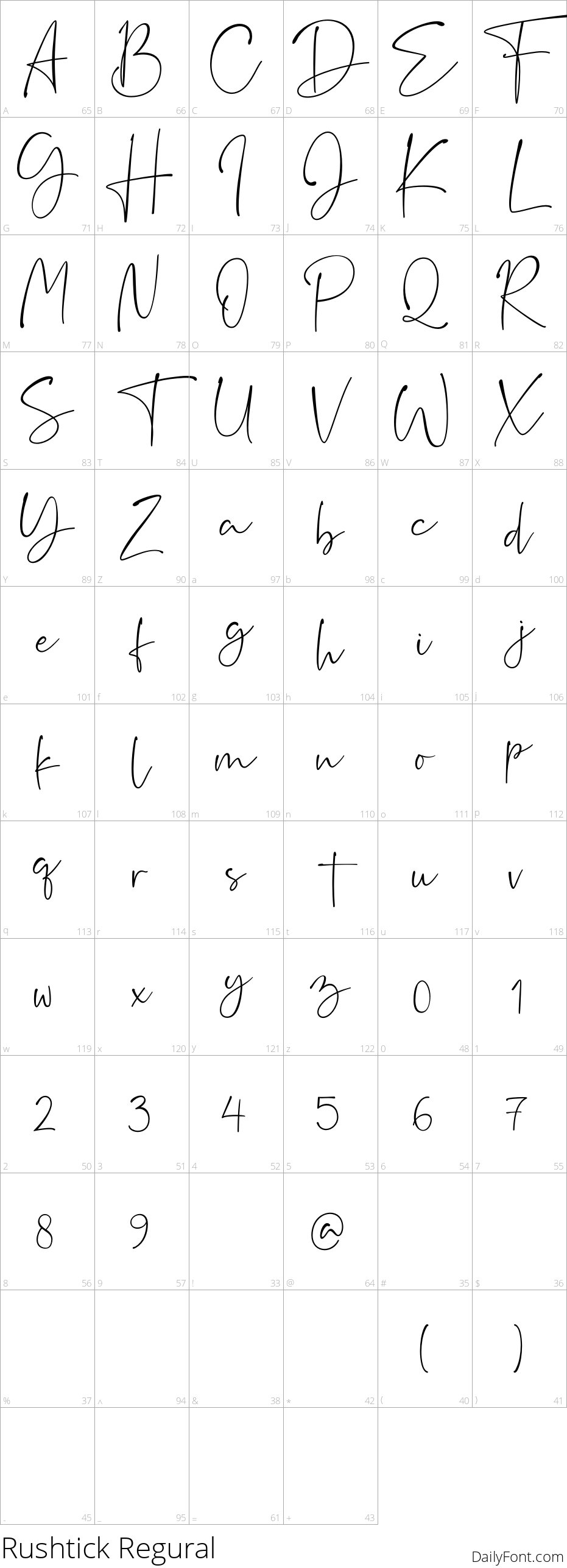
Rushtick
Rushtick, designed by Ef Studio, is a captivating script font that exudes an elegant, handwritten charm. The font's script nature gives it a sense of fluidity and grace, making it an excellent choice for projects that seek a personal, intimate touch. Each letter flows seamlessly into the next, creating a cohesive and harmonious look.
The characters in Rushtick are characterized by their smooth curves and intricate swirls, which convey a sense of meticulous craftsmanship. Uppercase letters stand out with their bold flourishes, adding a touch of sophistication, while the lowercase letters maintain a consistent, gentle rhythm, ensuring readability. This balance between elegance and readability makes Rushtick versatile for various design needs.
Additionally, Rushtick includes numbers and a range of punctuation marks that match the font's overall style, offering a complete and cohesive set for designers to work with. The inclusion of these elements ensures that the font is as functional as it is beautiful.
Designed with careful attention to detail, Rushtick is perfect for invitations, branding, logos, and any design project that benefits from a handwritten aesthetic. Ef Studio's creation stands out by combining modern appeal with timeless elegance, ensuring it remains relevant and appealing to a wide audience. The harmonious blend of fluidity and sophistication makes Rushtick an excellent choice for bringing a personal and refined touch to any design.